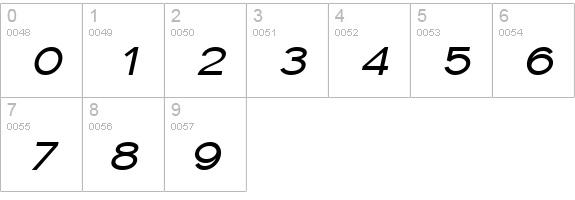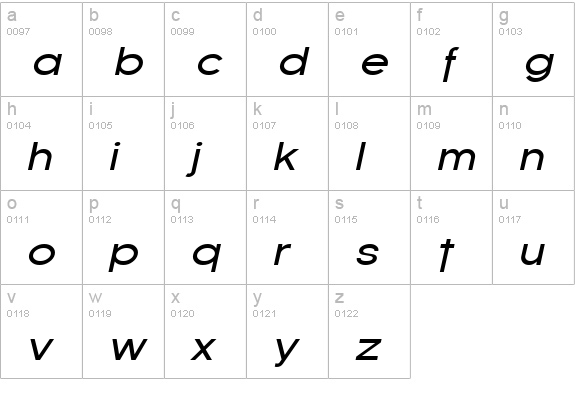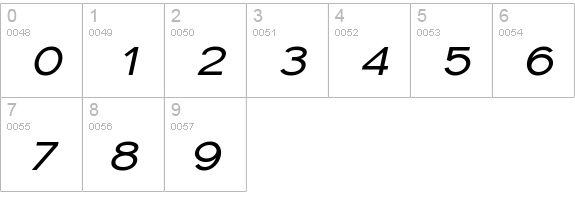
Florencesans Exp Italic is a distinctive, italic variant in the Florencesans typeface family \xE2\x80\x94 well suited to design and typography projects.
Florencesans Exp Italic font is a stylish and elegant typeface that exudes sophistication and modernity. Its sleek and slanted design adds a touch of flair to any project, making it perfect for use in branding, advertising, and editorial design. The italicized version of Florencesans Exp features delicate curves and flowing lines that create a sense of movement and elegance. What sets Florencesans Exp Italic font apart is that it is freely available to download at FontsMarket.com. This means that designers and creatives can easily access this high-quality font without any cost, making it a versatile and budget-friendly option for a wide range of projects. Whether you're looking to elevate your typography game or add a touch of sophistication to your designs, Florencesans Exp Italic font is sure to make a lasting impression.